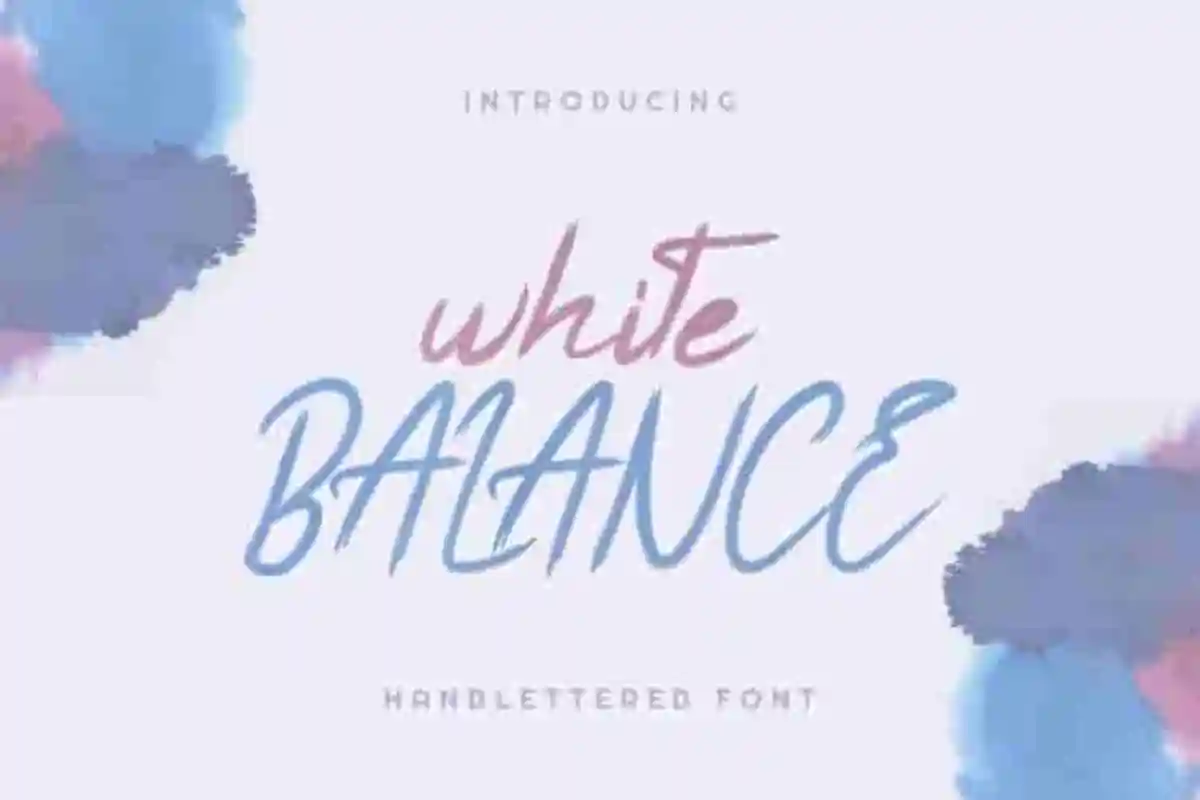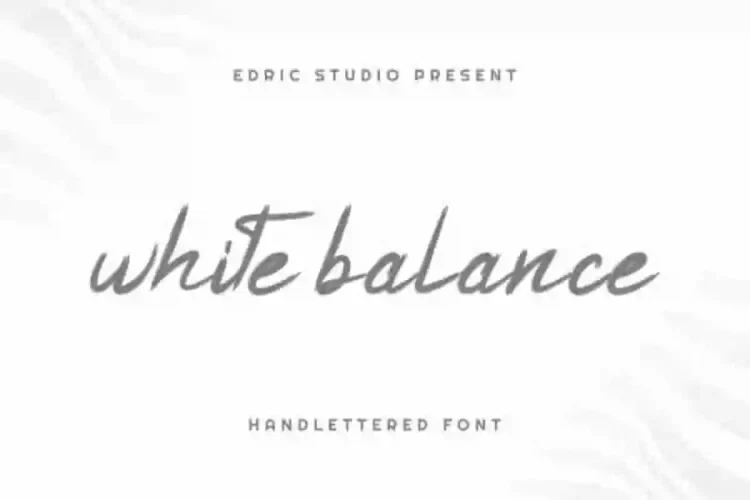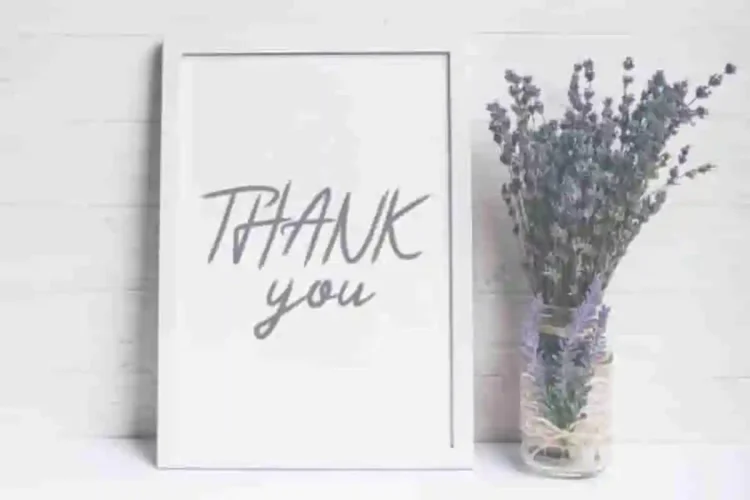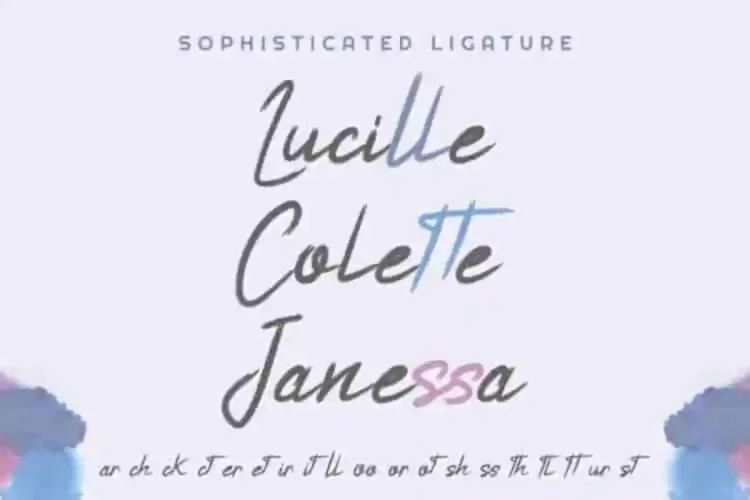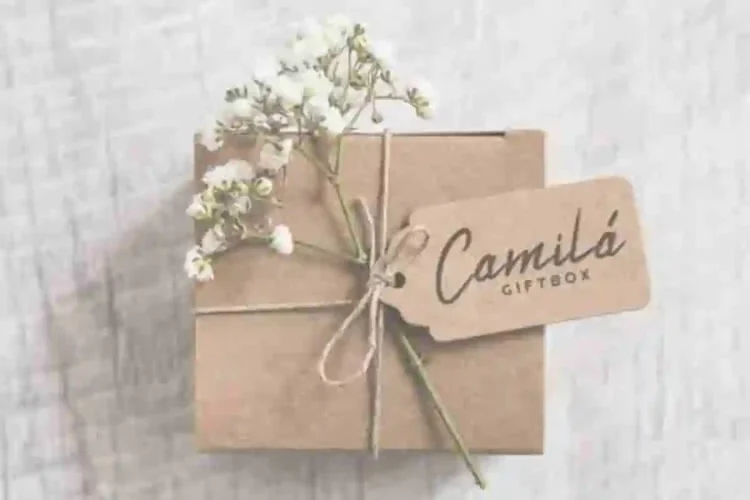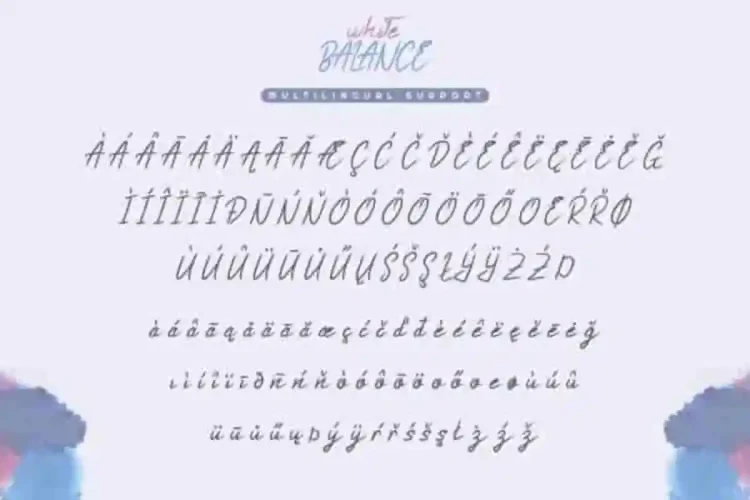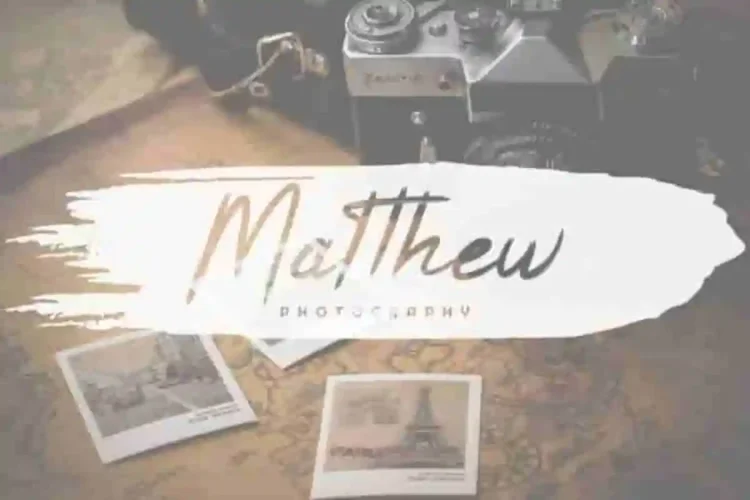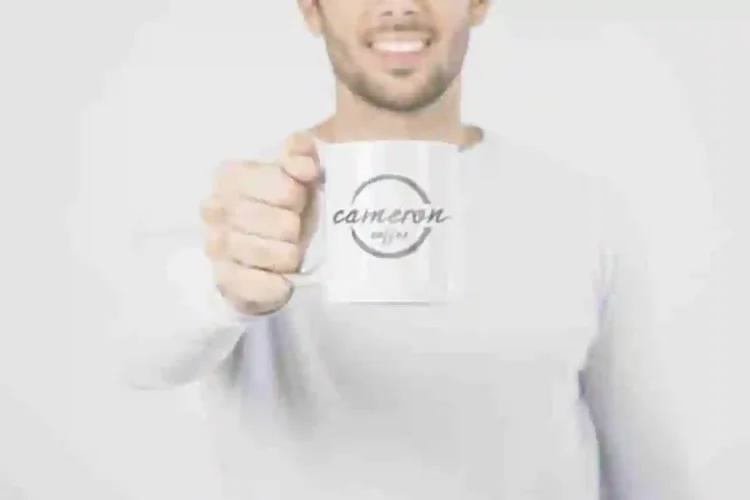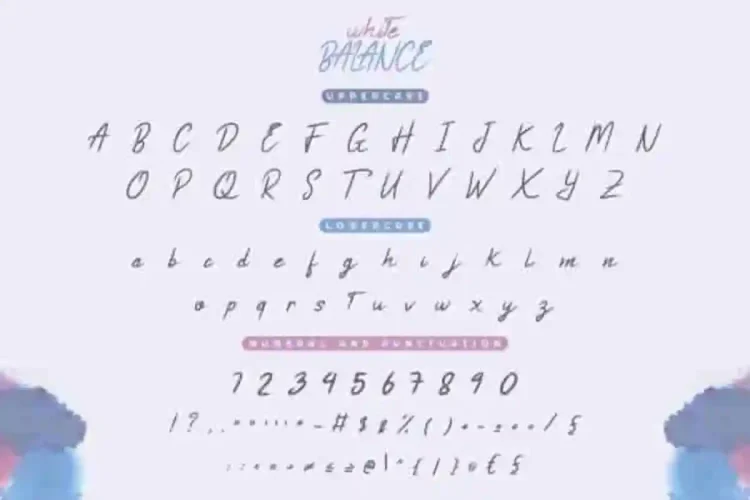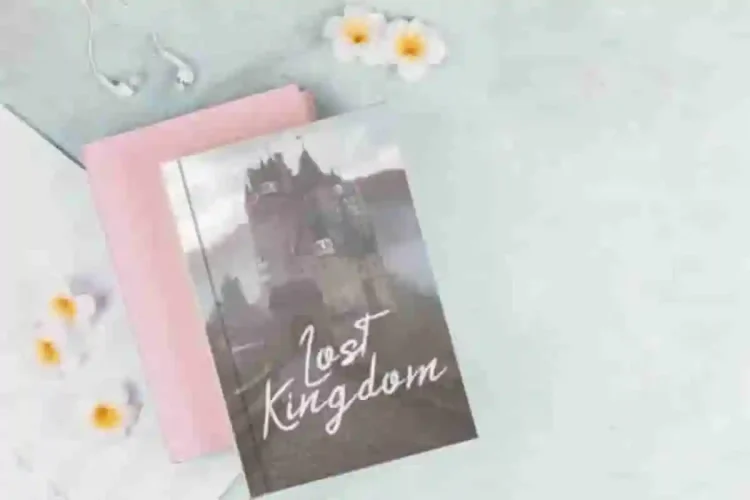
White Balance Calligraphy Script Font
This is a calligraphy font, handcrafted from our Studio here in Bandung and Garut, Indonesia. The artists/designers of this beautiful tyeface is Fahri and Sarah Suci.
White Balance Calligraphy Script Font is an exclusive signature script typeface with rough dry style. This font has a stunning characters set, perfectly managed with well spaced and kerning.
White Balance Calligraphy Script Font will be great for any projects including : branding, logo, stationery, business card, signage, flyer, brochure etc. Almost all industries will be match for this typeface: wedding, events, real estate, architect, law firm, florist, gardening, makeup artist, travel, hotel, musician etc.